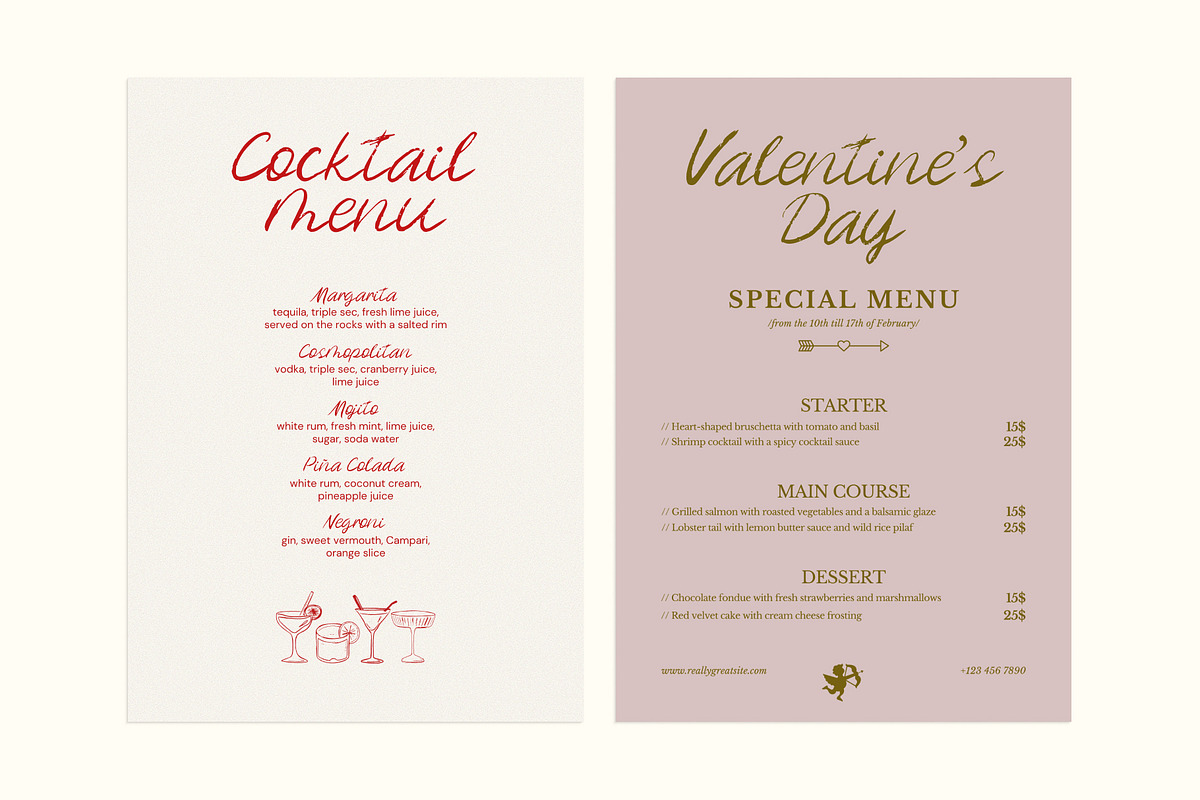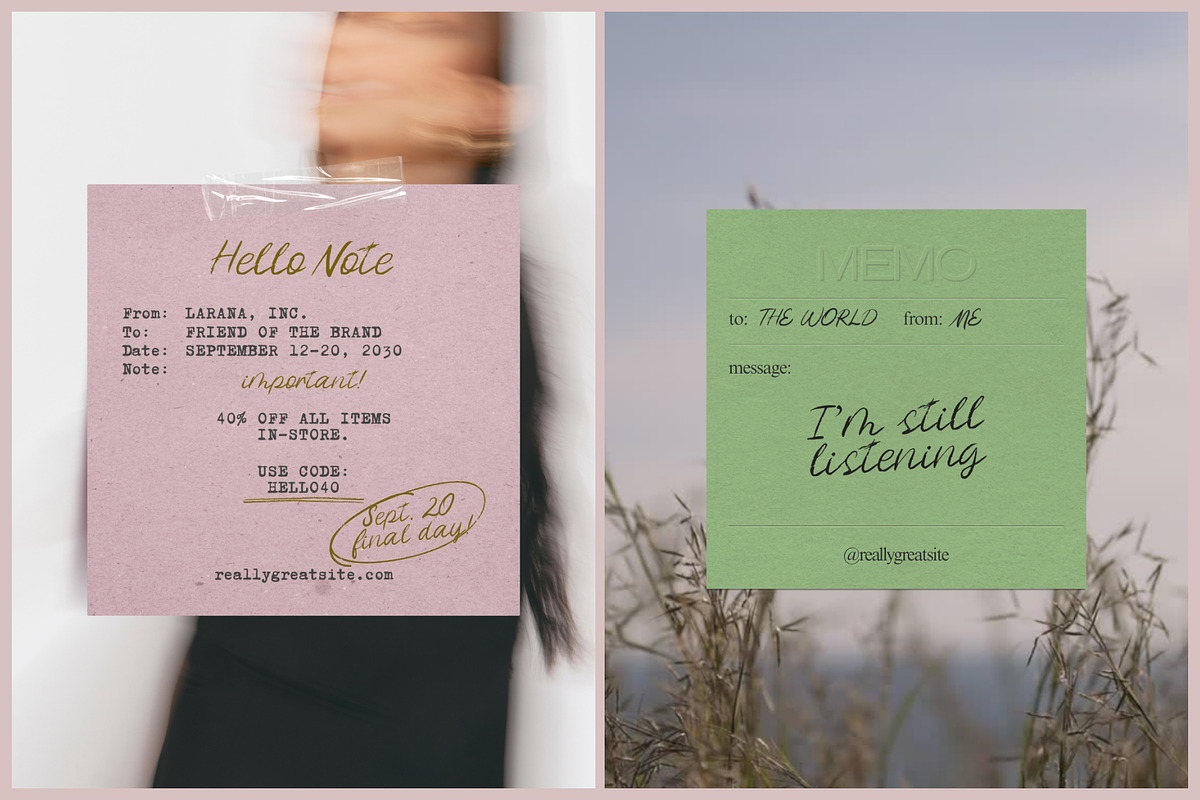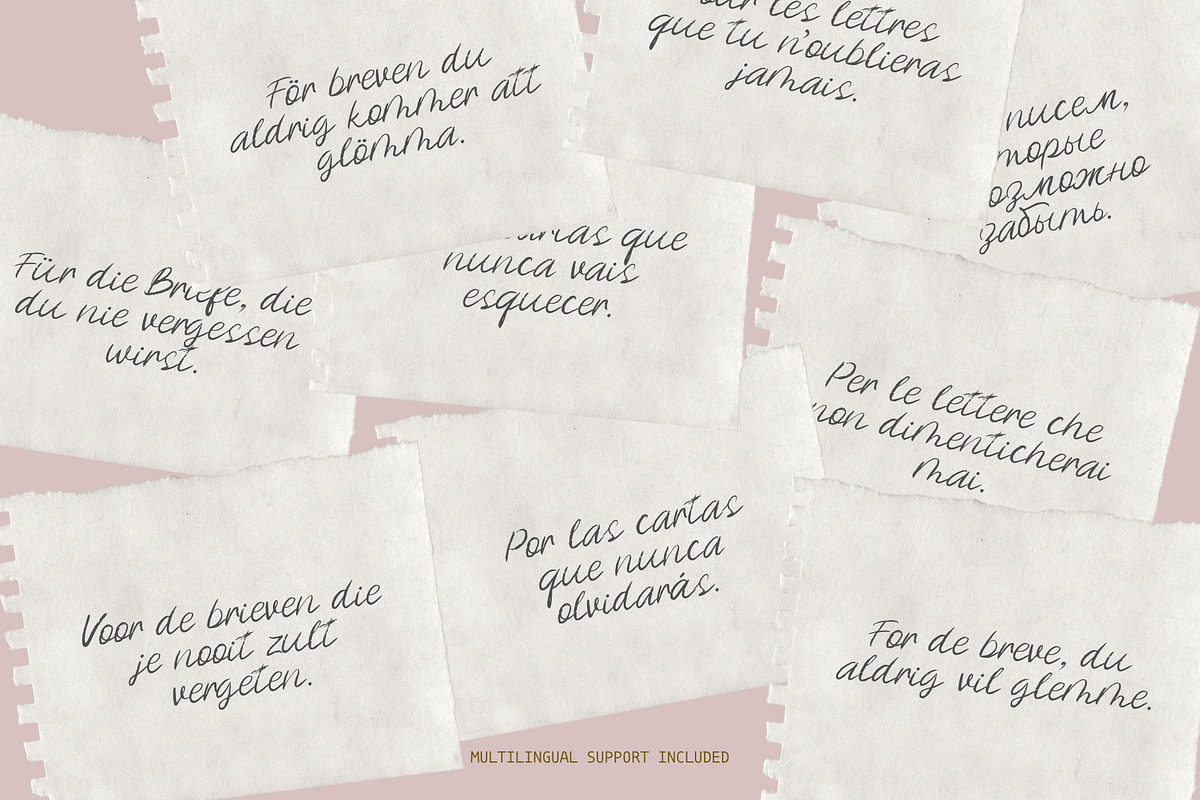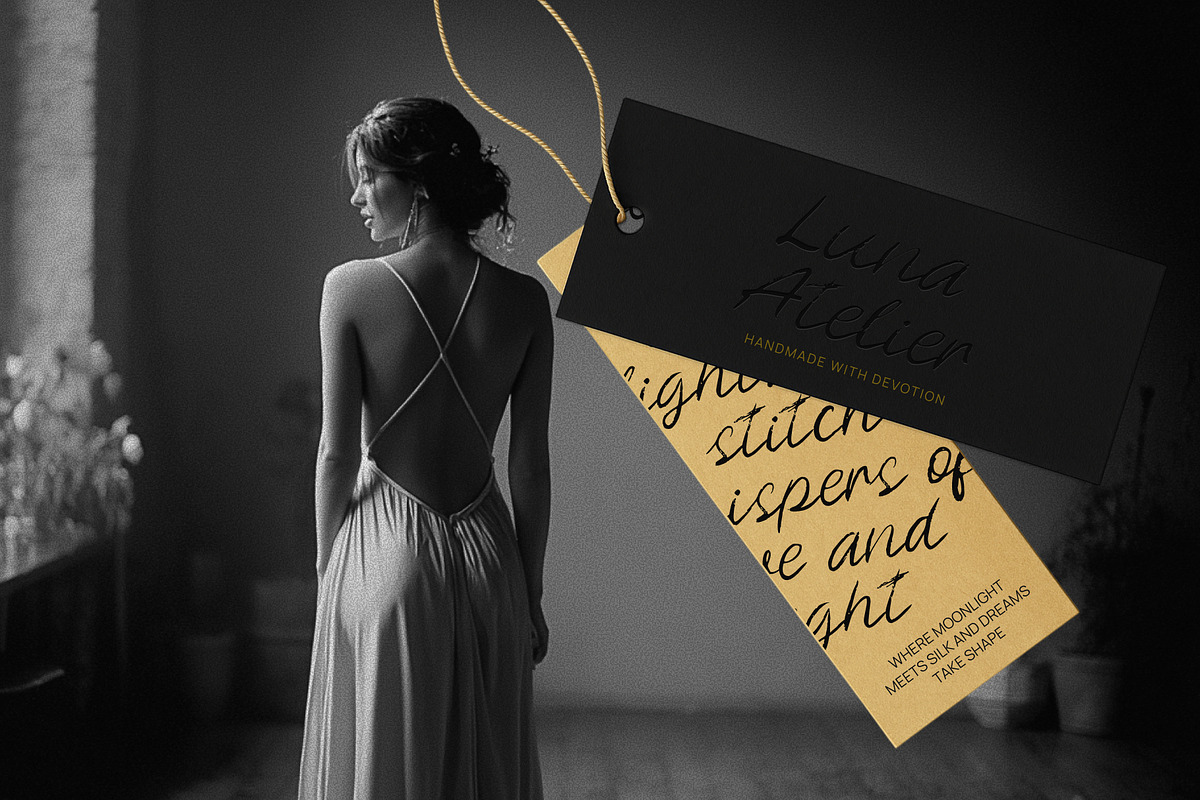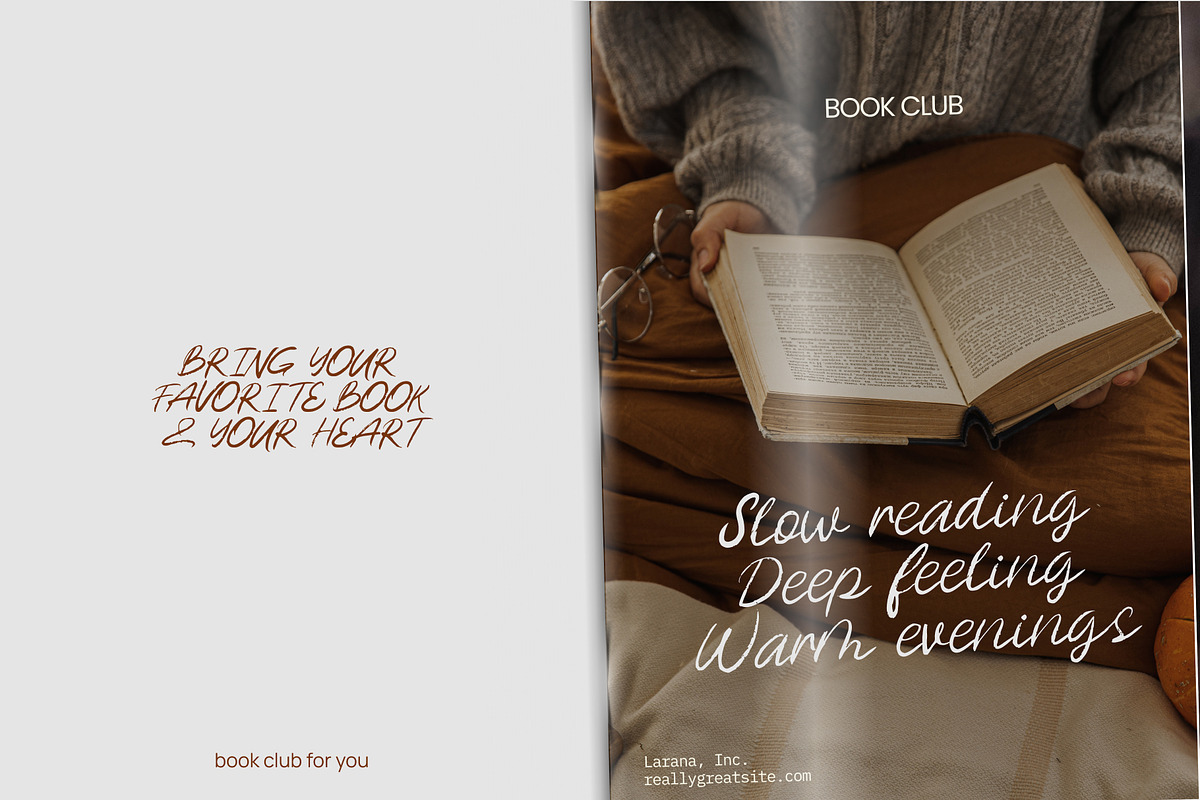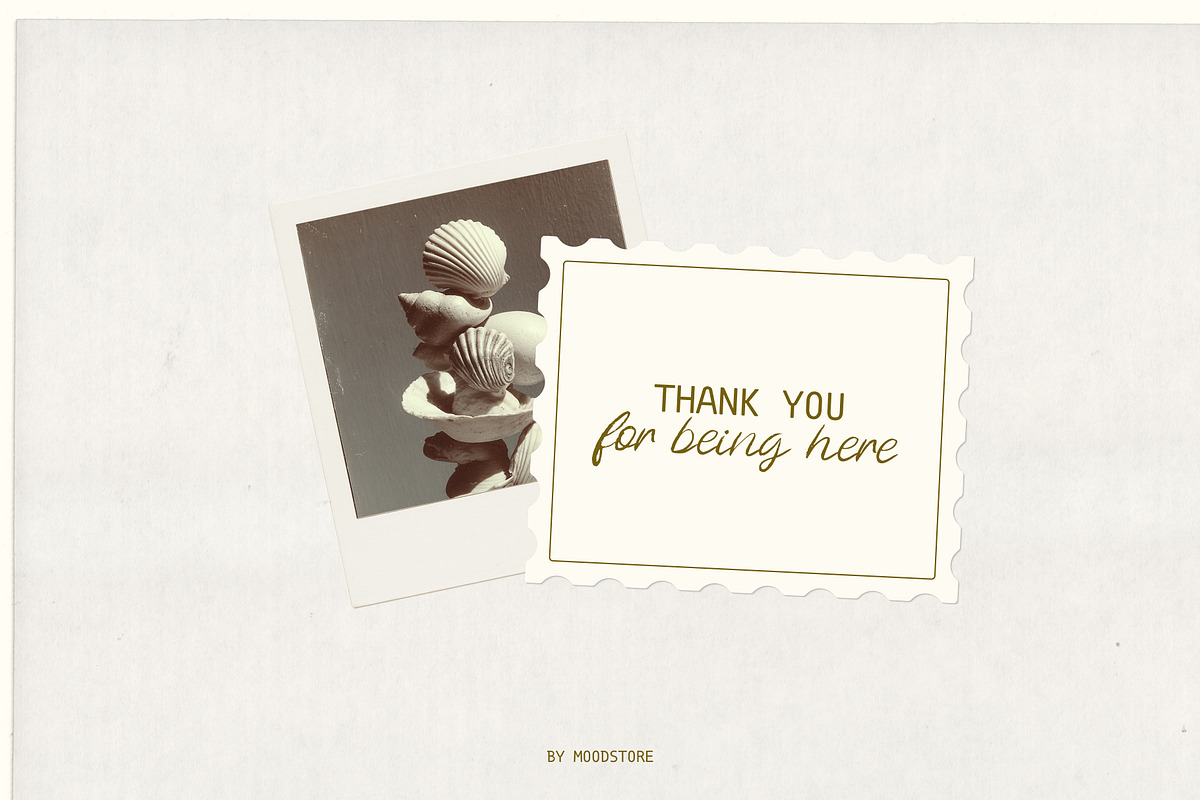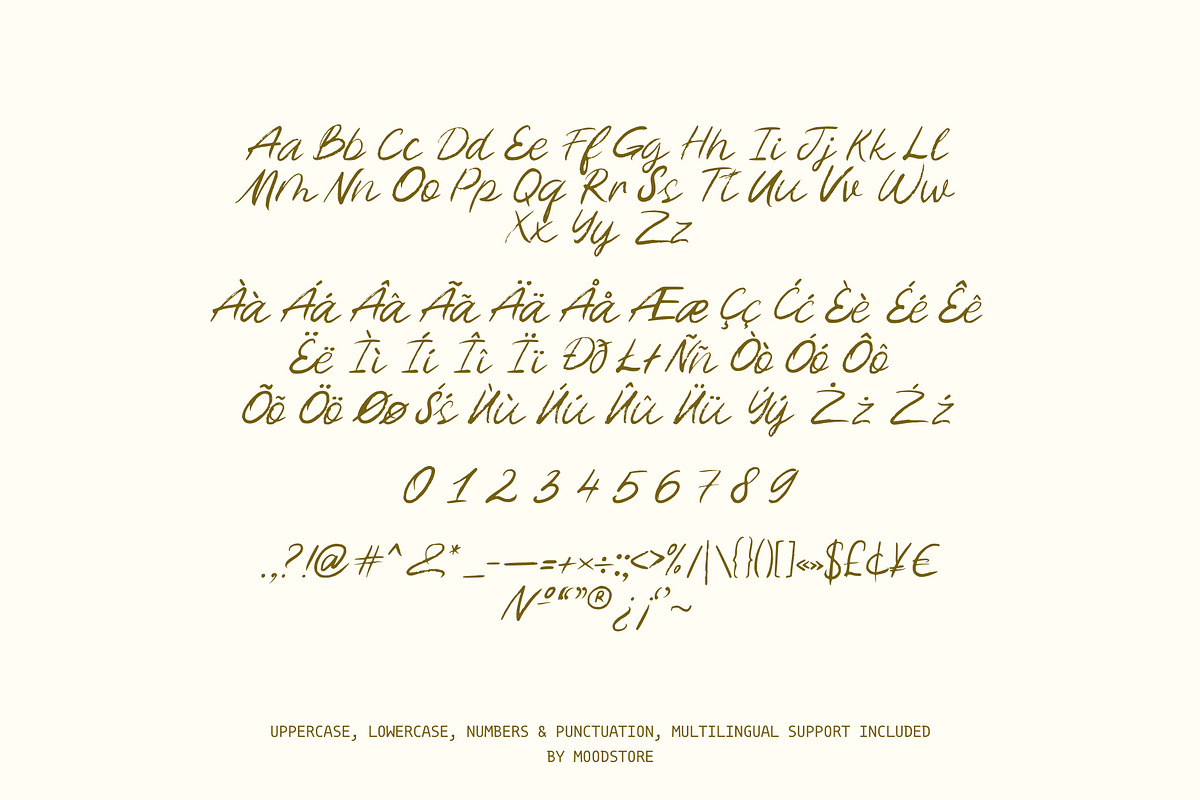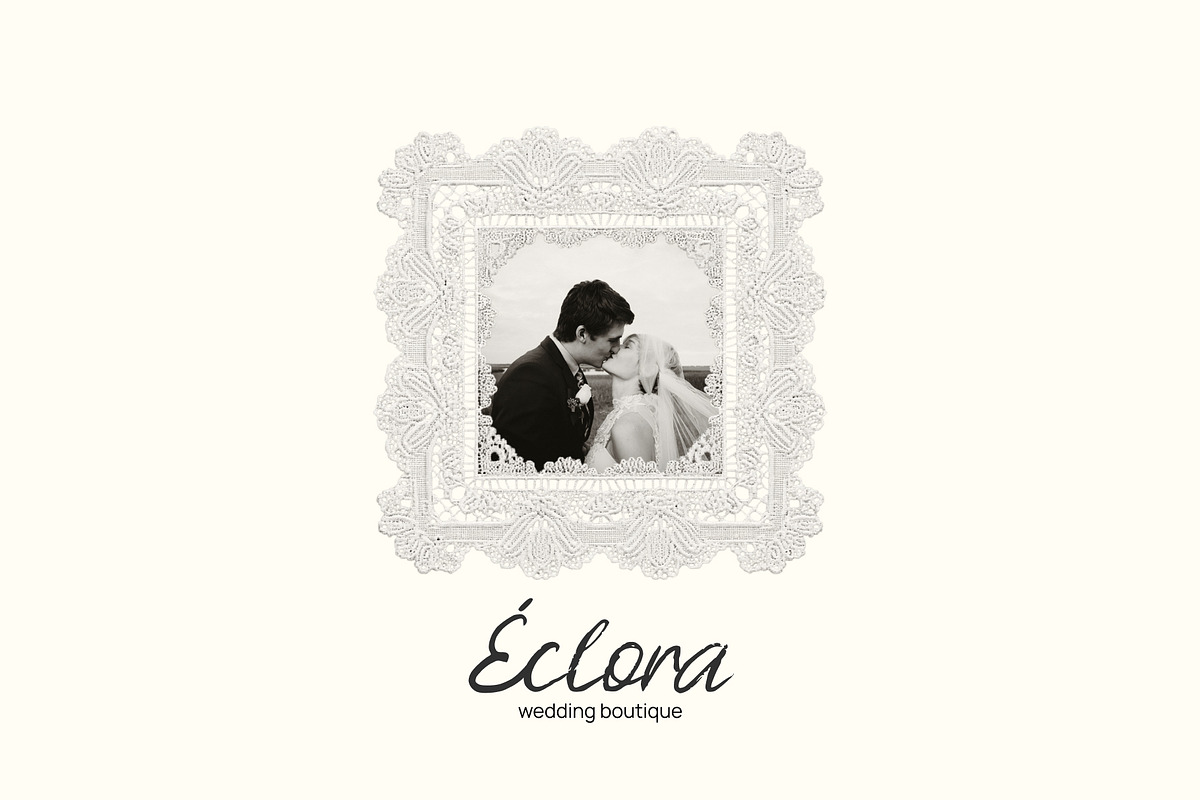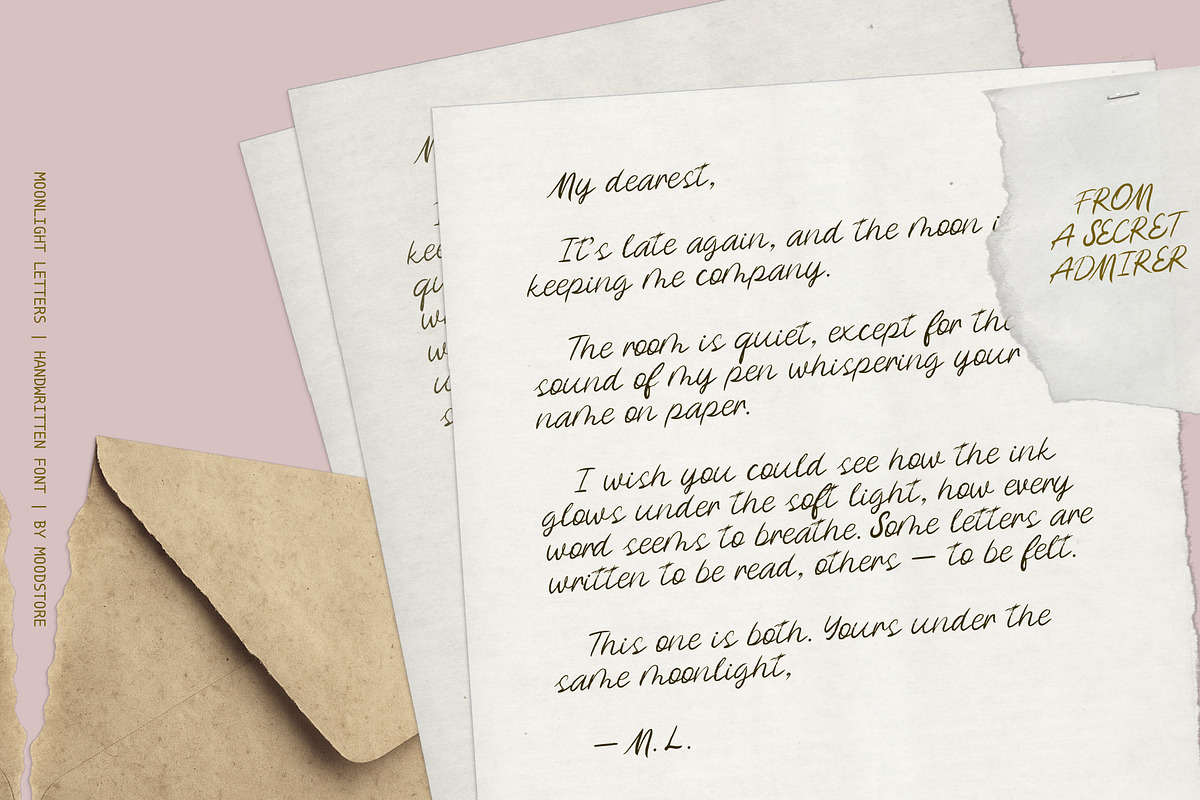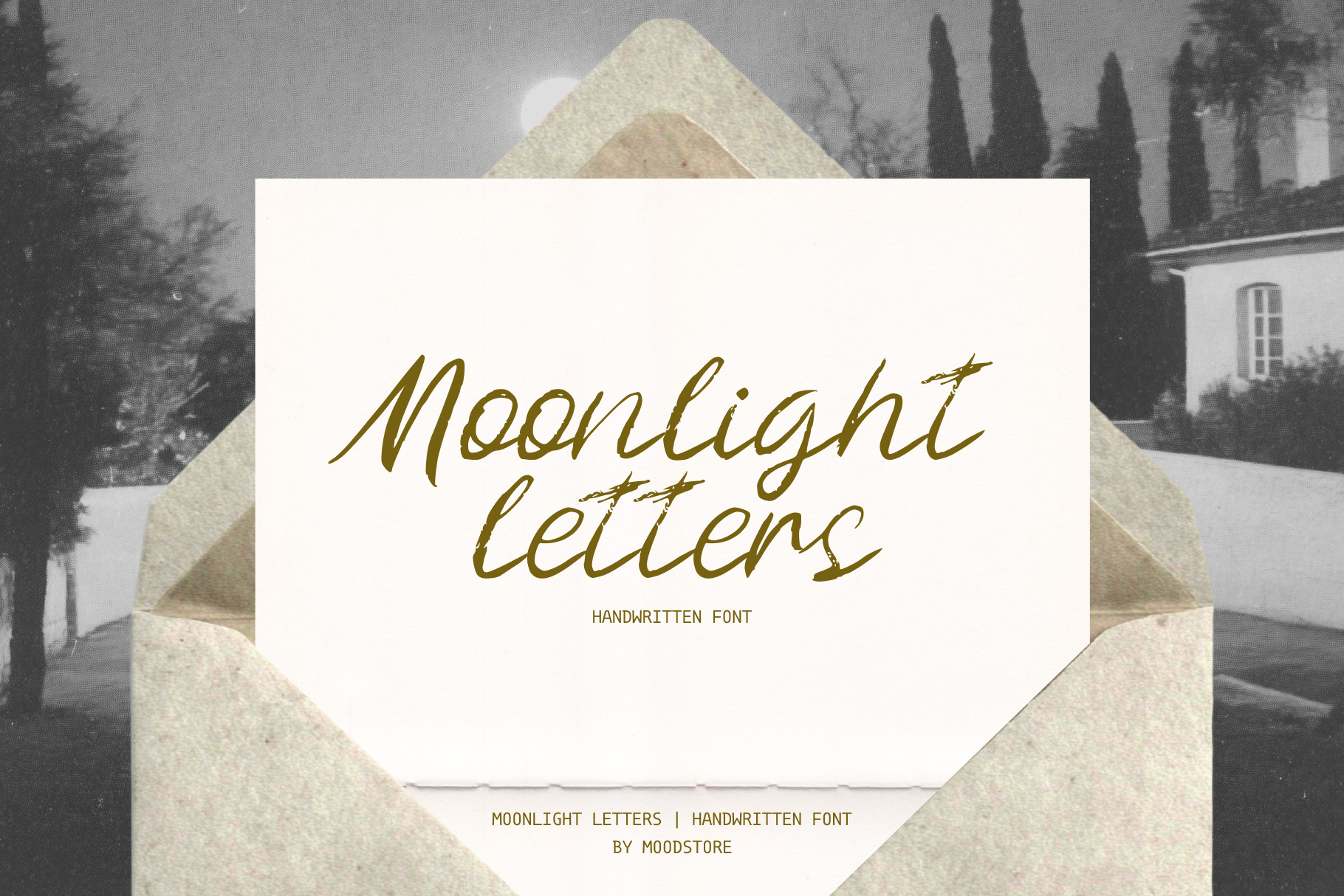
Moonlight Letters Handwritten font
Moonlight Letters is a gentle handwritten font inspired by natural handwriting. It keeps the warmth of ink on paper and adds a calm, personal touch to any project.
Ideal for: Wedding & love stationery, brand identity, journals, greeting cards, quotes, editorials, packaging, poetry projects and more